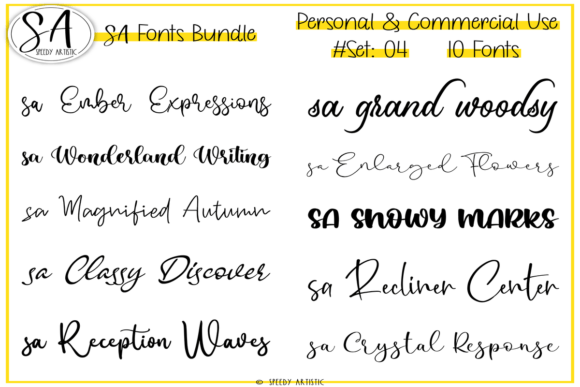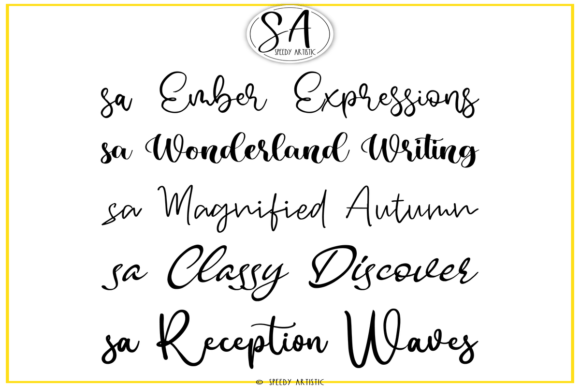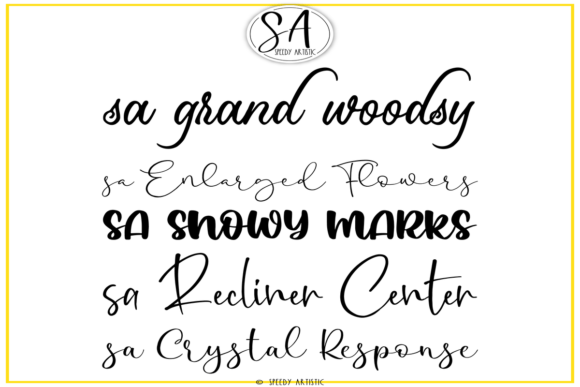
Script and Handwritten Bundle 4 Font
This handwritten fonts set includes 10 handwritten True-Type script Fonts (TTF) perfect for your everyday creation journey to create something catchy.
This font bundle is for creators who love to have a large collection of appealing fonts to use when creating new products.
01. SA Ember Expressions
02. SA Wonderland Writing
03. SA Grand Woodsy
04. SA Enlarged Flowers
05. SA Magnified Autumn
06. SA Showy Marks
07. SA Classy Discover
08. SA Recliner Center
09. SA Reception Waves
10. SA Crystal Response
Every font in this bundle promises an engaging journey so that you can transform your everyday creation into something truly spectacular.